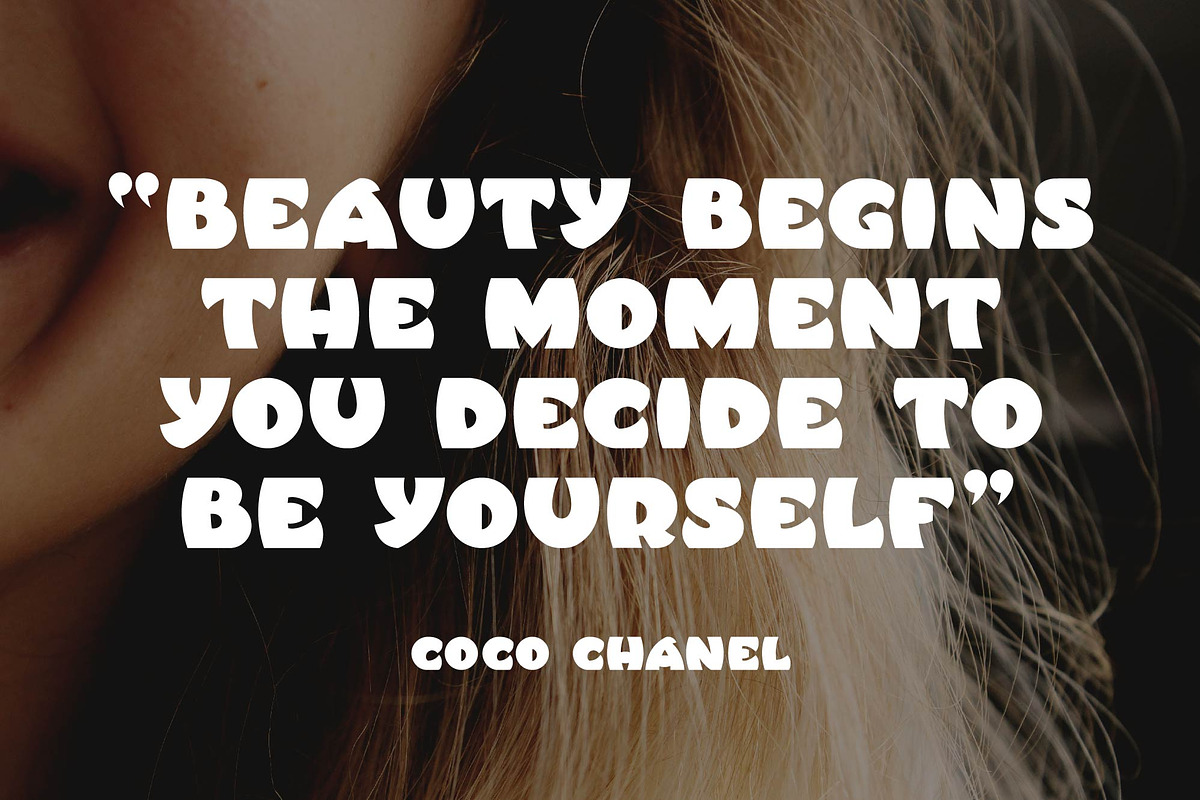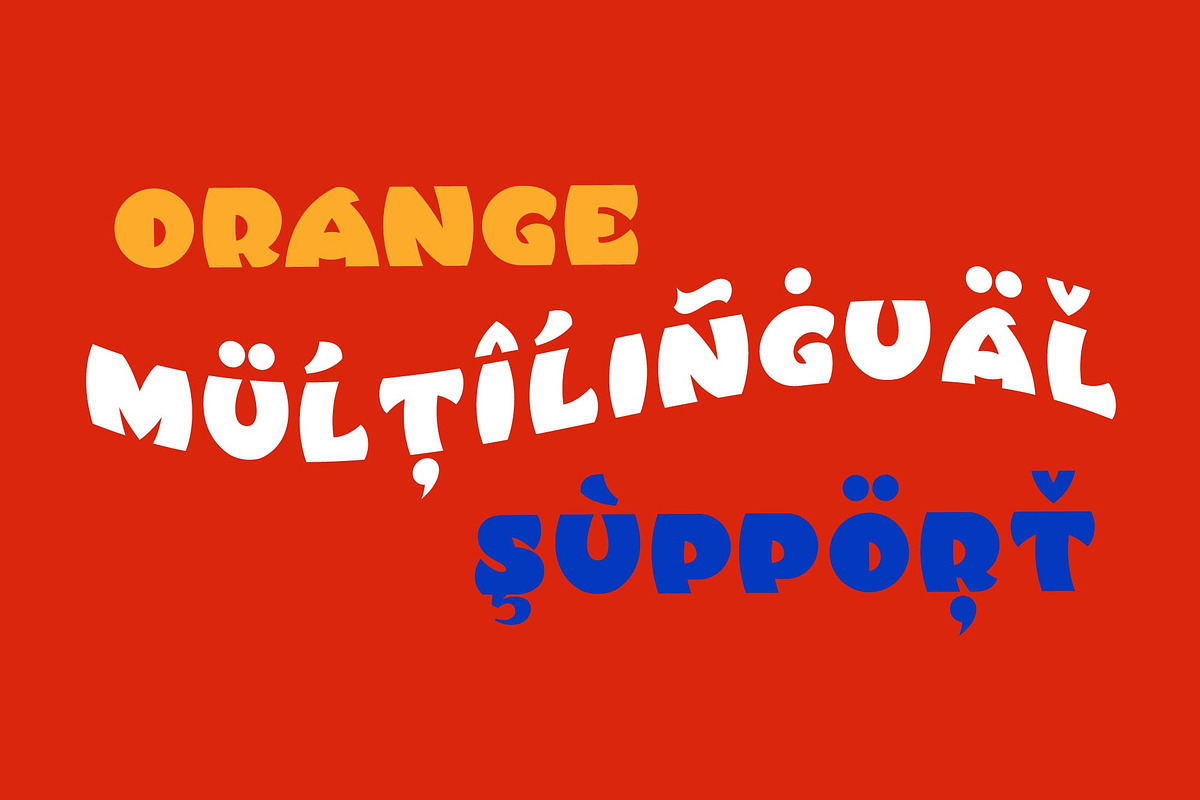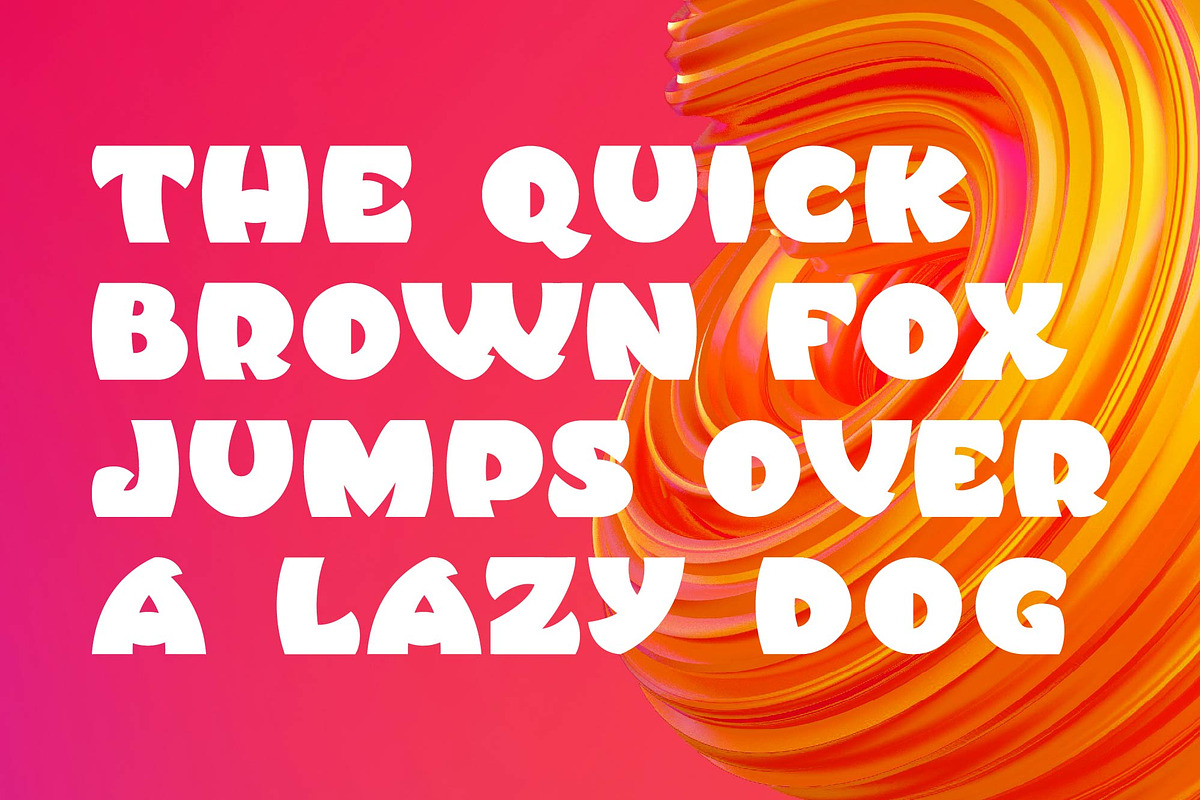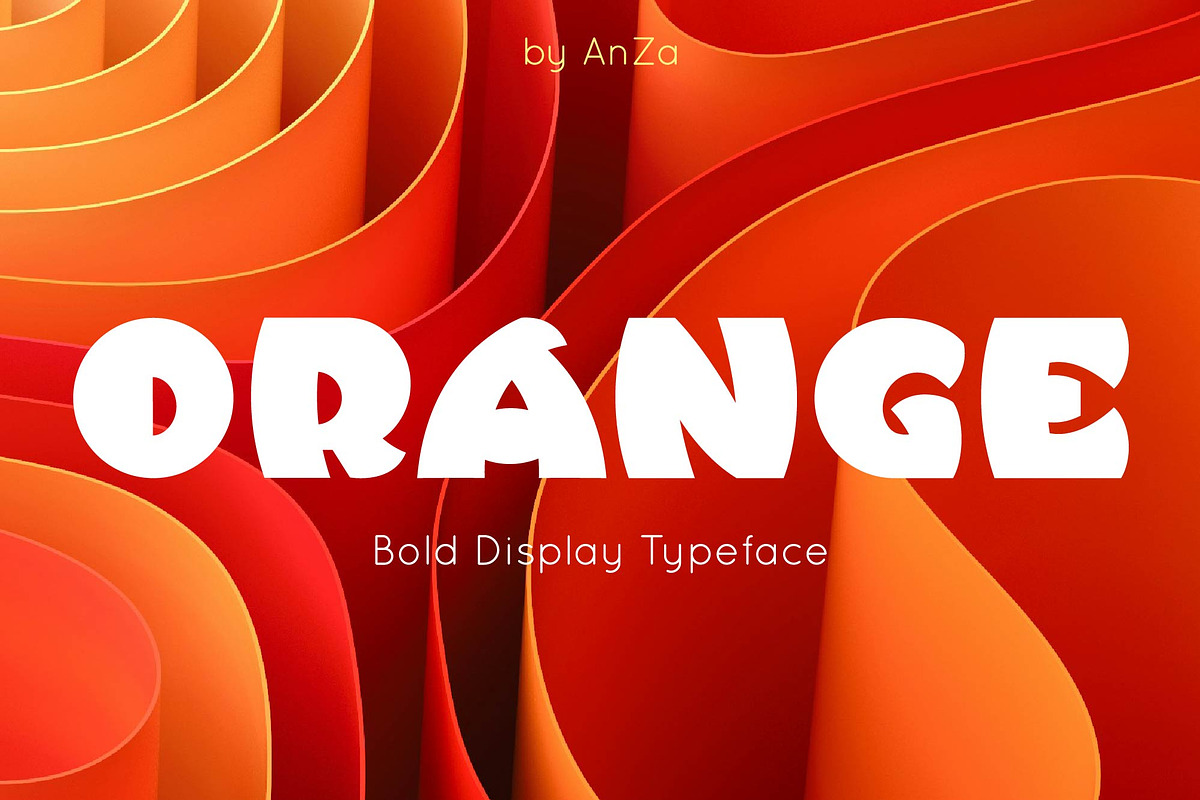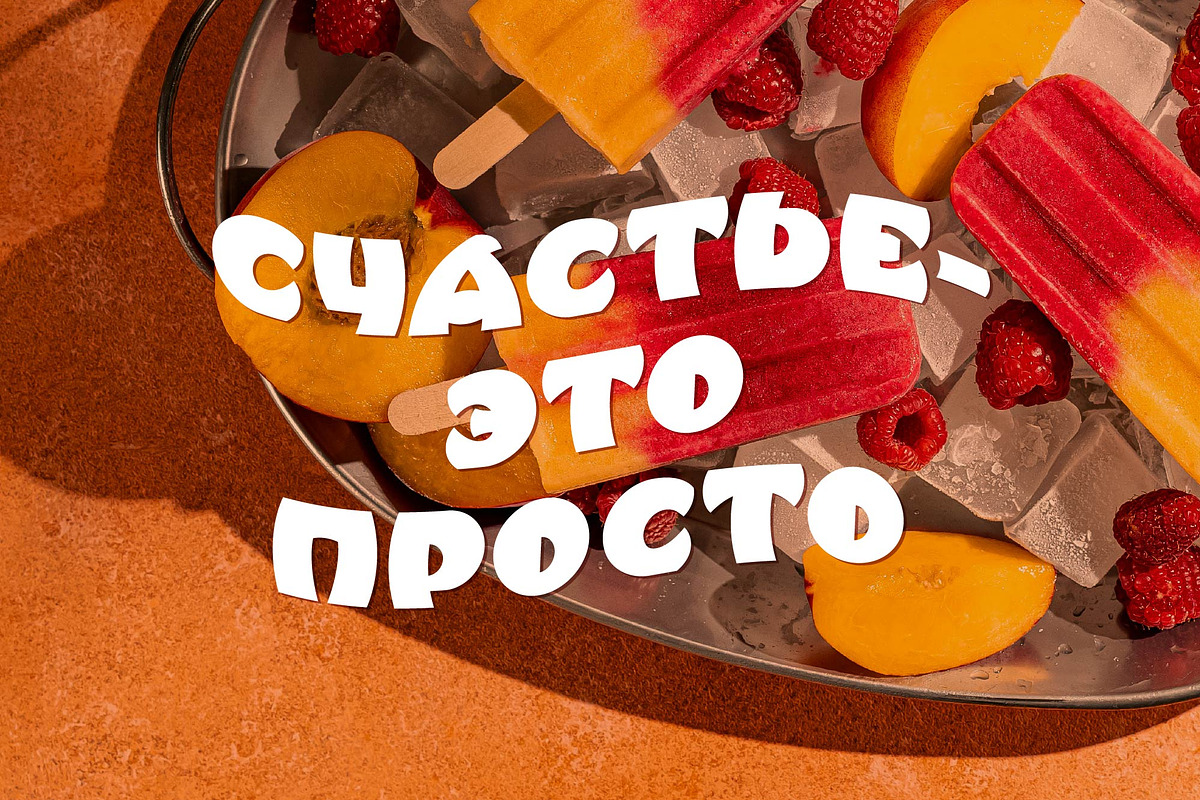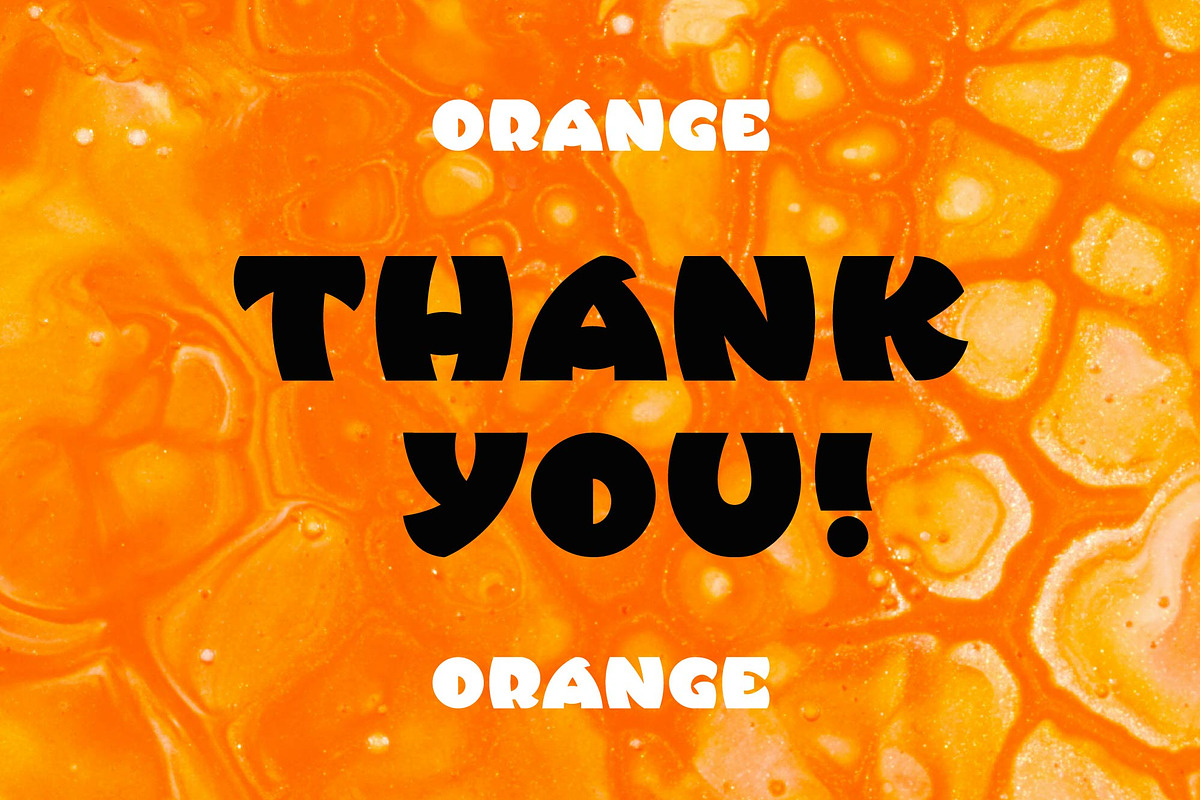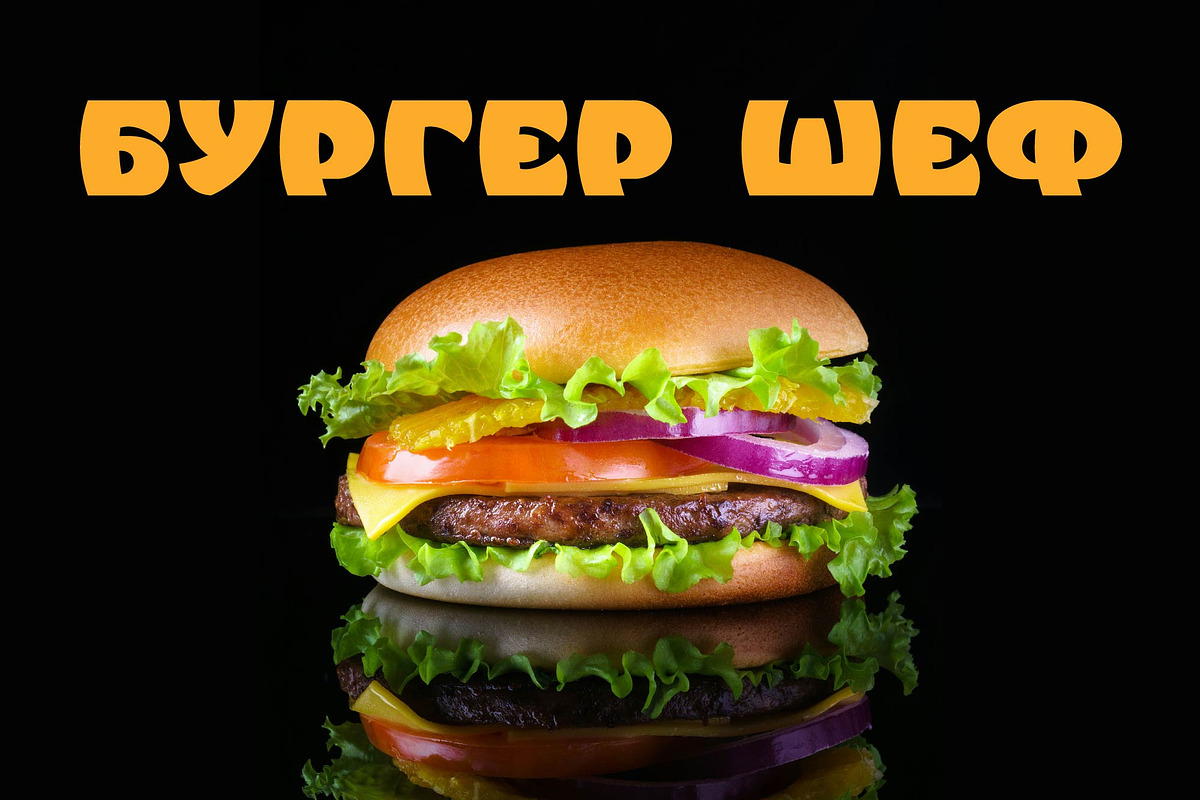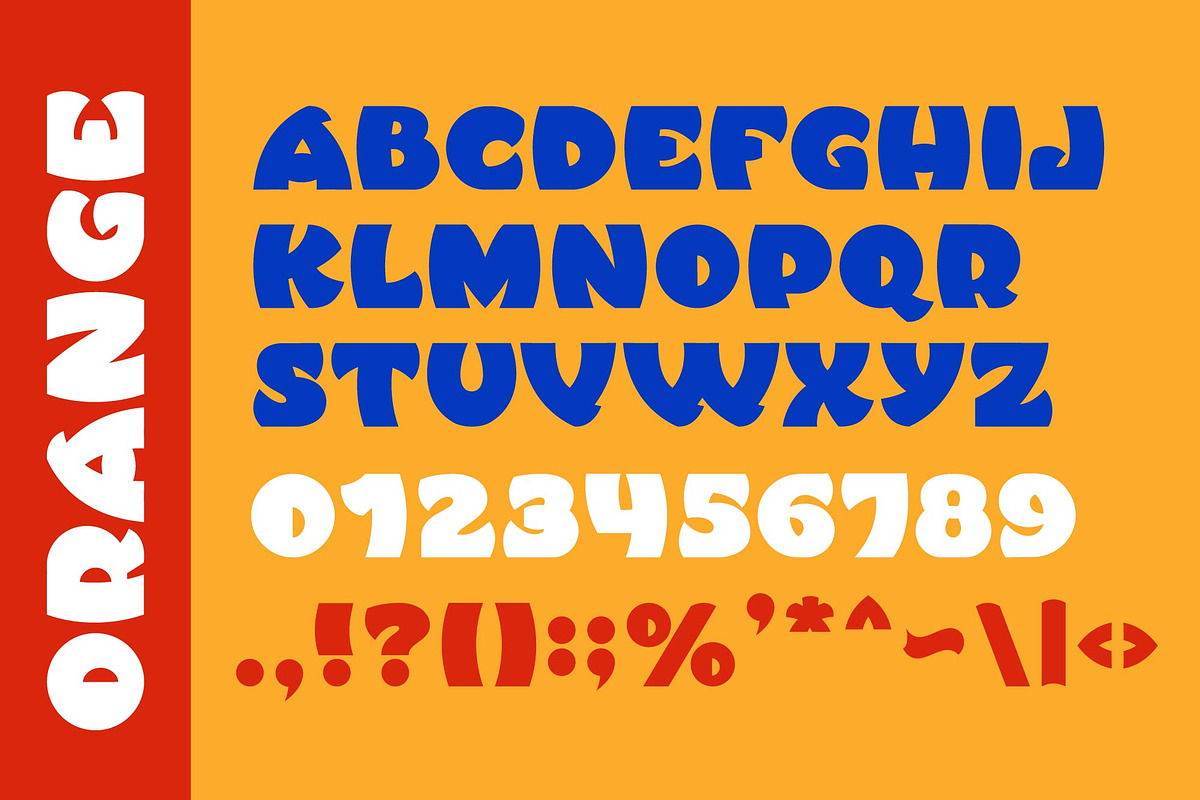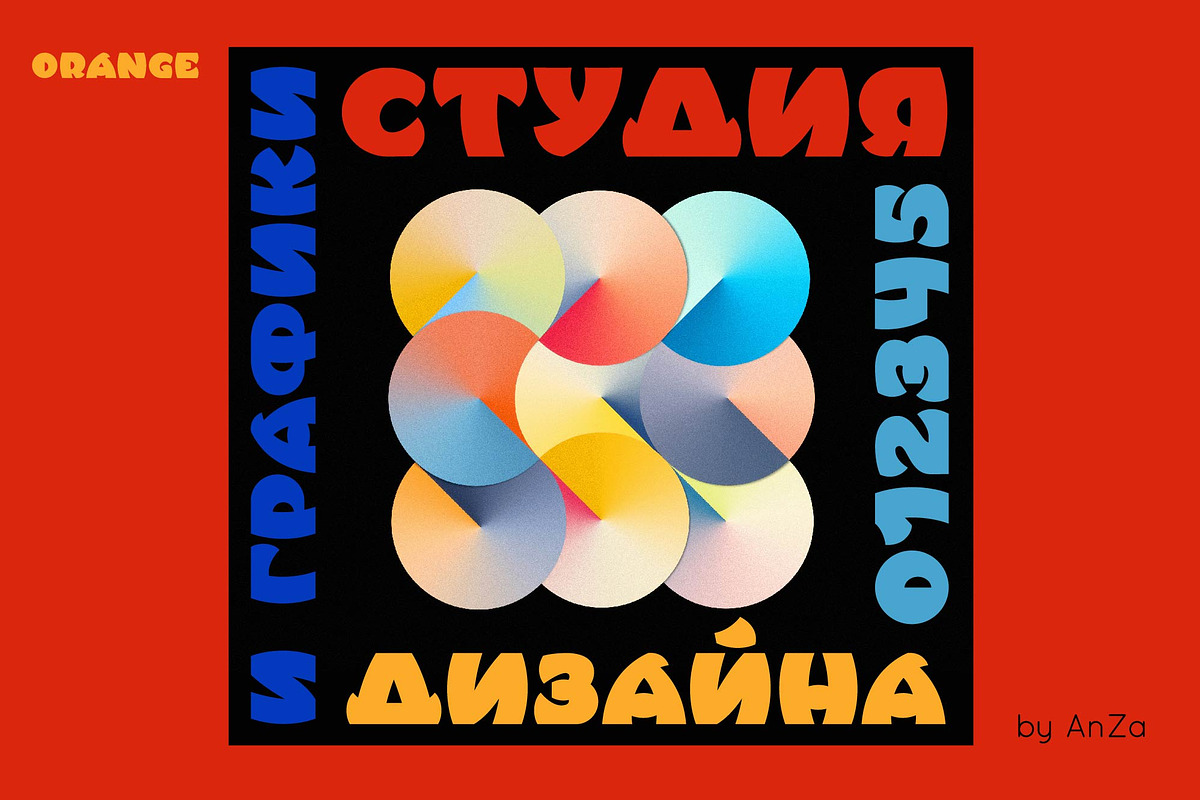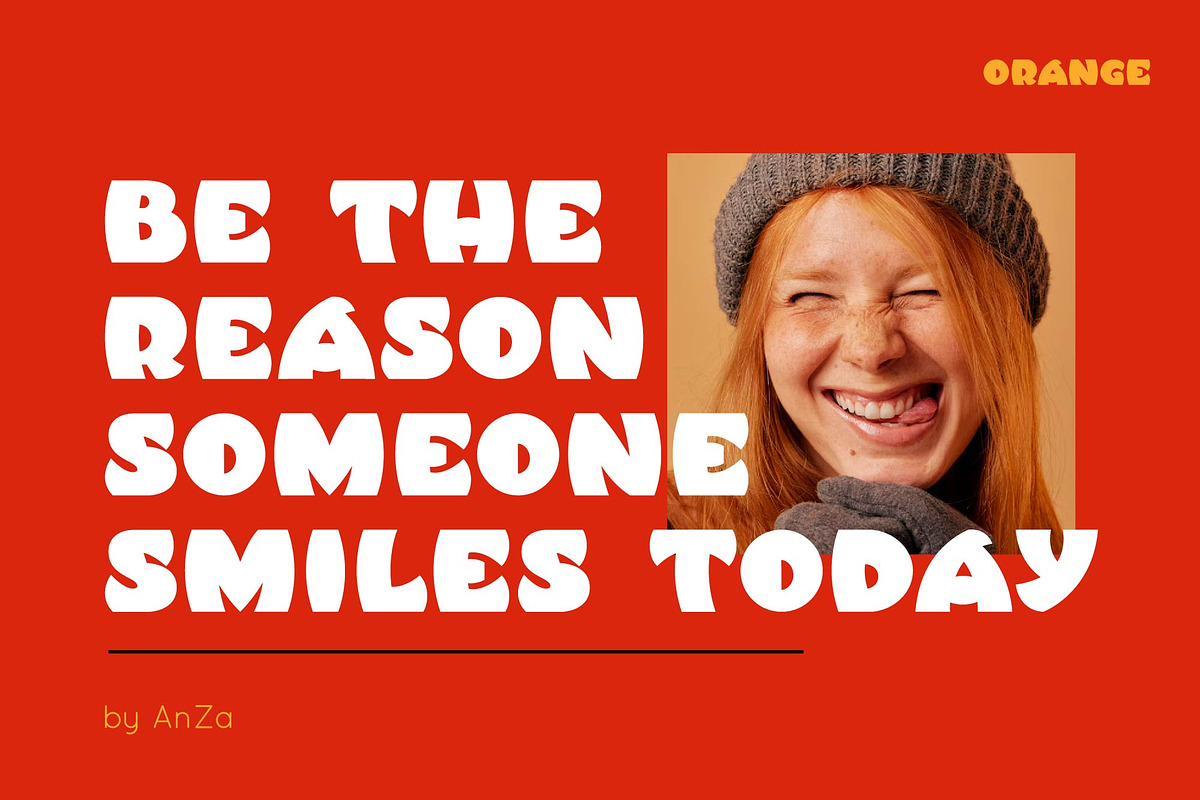
Orange display typeface
ORANGE is a new display typeface designed to bring more warm and cheerful emotions to everyday life. It's retro, chunky, bold, and playful.
It is perfect for designers looking to leave an impression. ORANGE is simple but significant.
This beautiful thick, quirky, and bold font is ideal for headlines, covers, social media, thumbnails, books, logotype, stationary, packaging, branding, and more.
ORANGE has uppercase characters, numbers and punctuations, multilingual support (French, German, Italian, Norwegian, Portuguese, Spanish, Swedish, Swiss German). It also has Cyrillic glyphs.